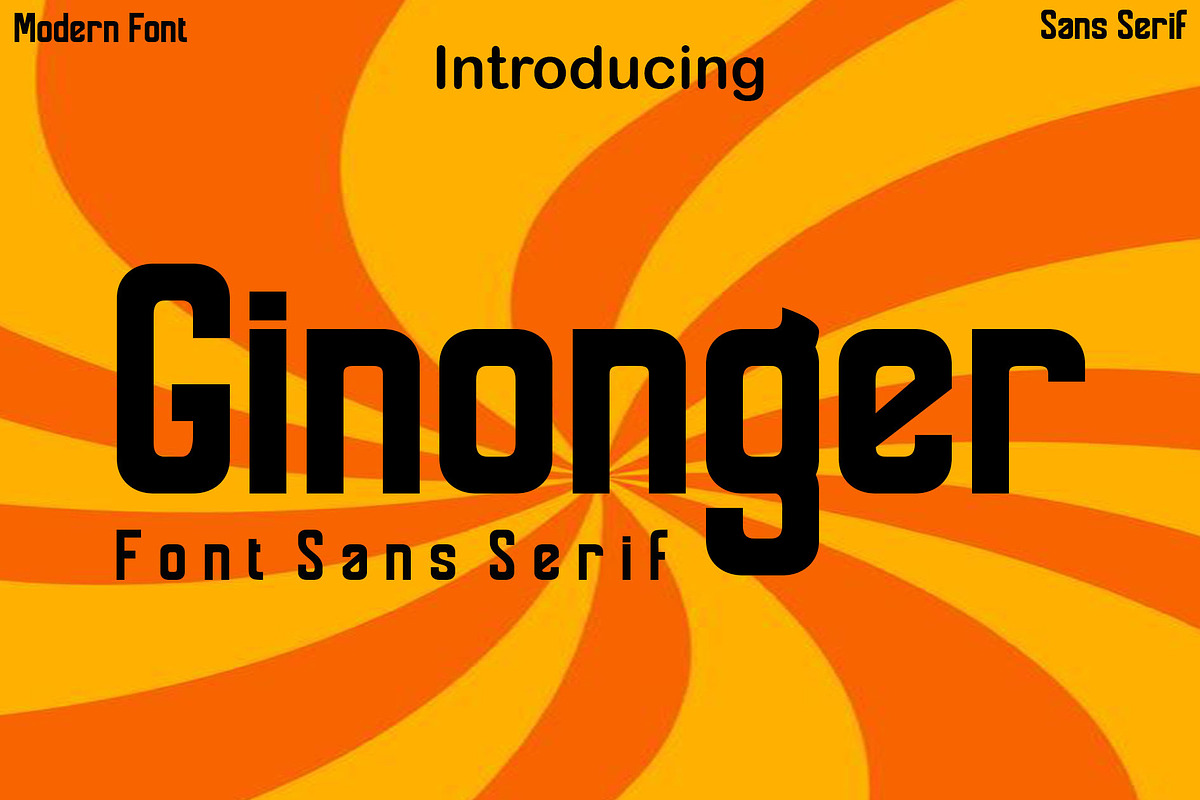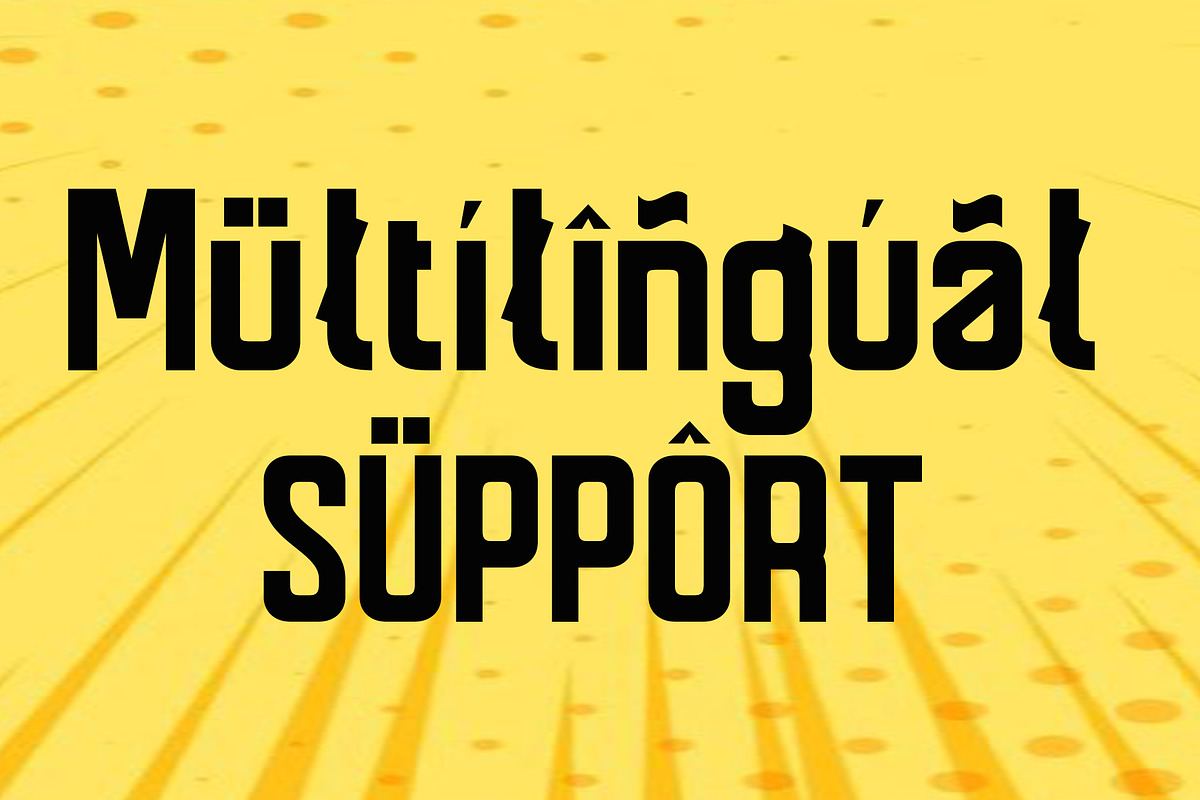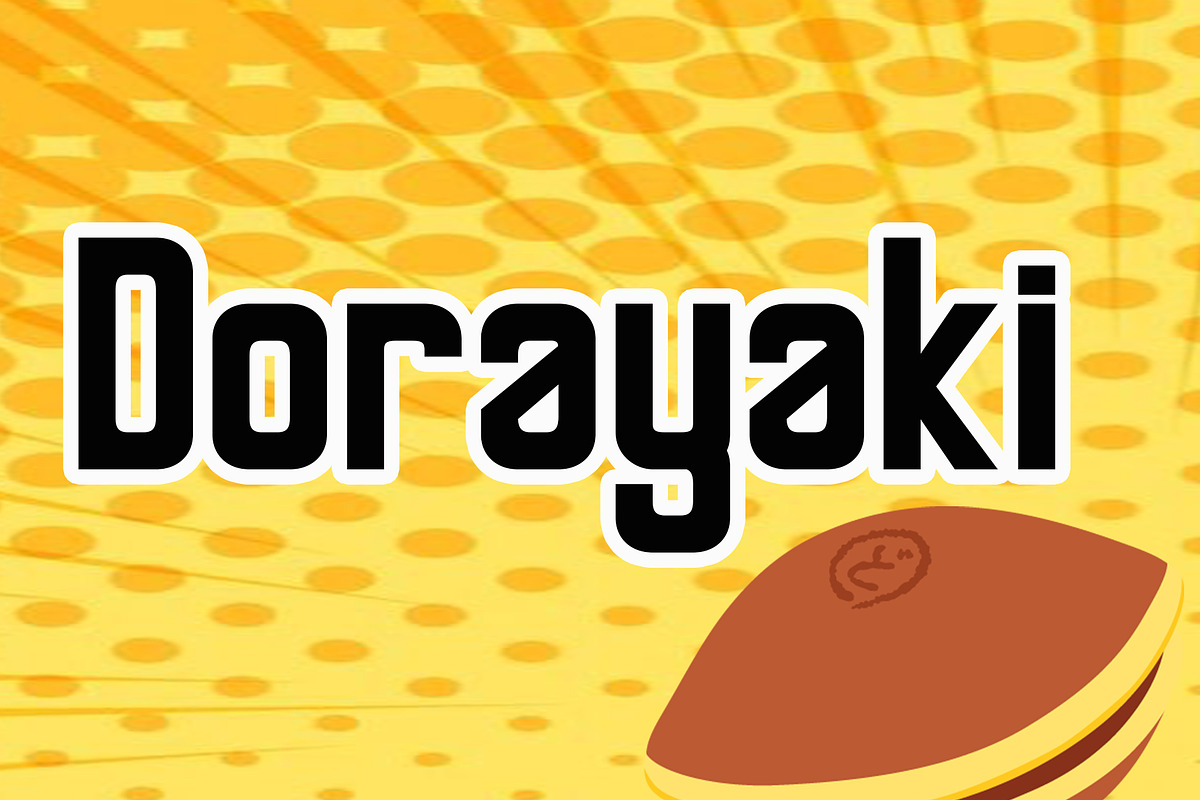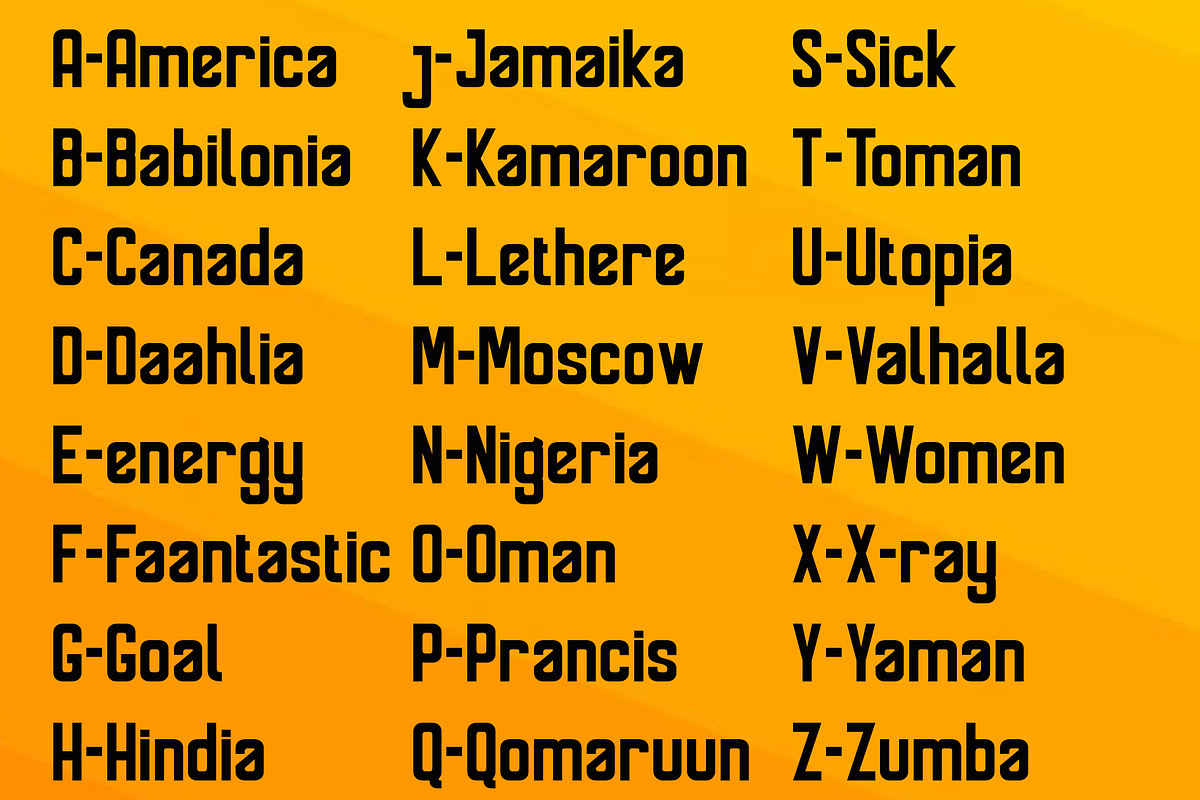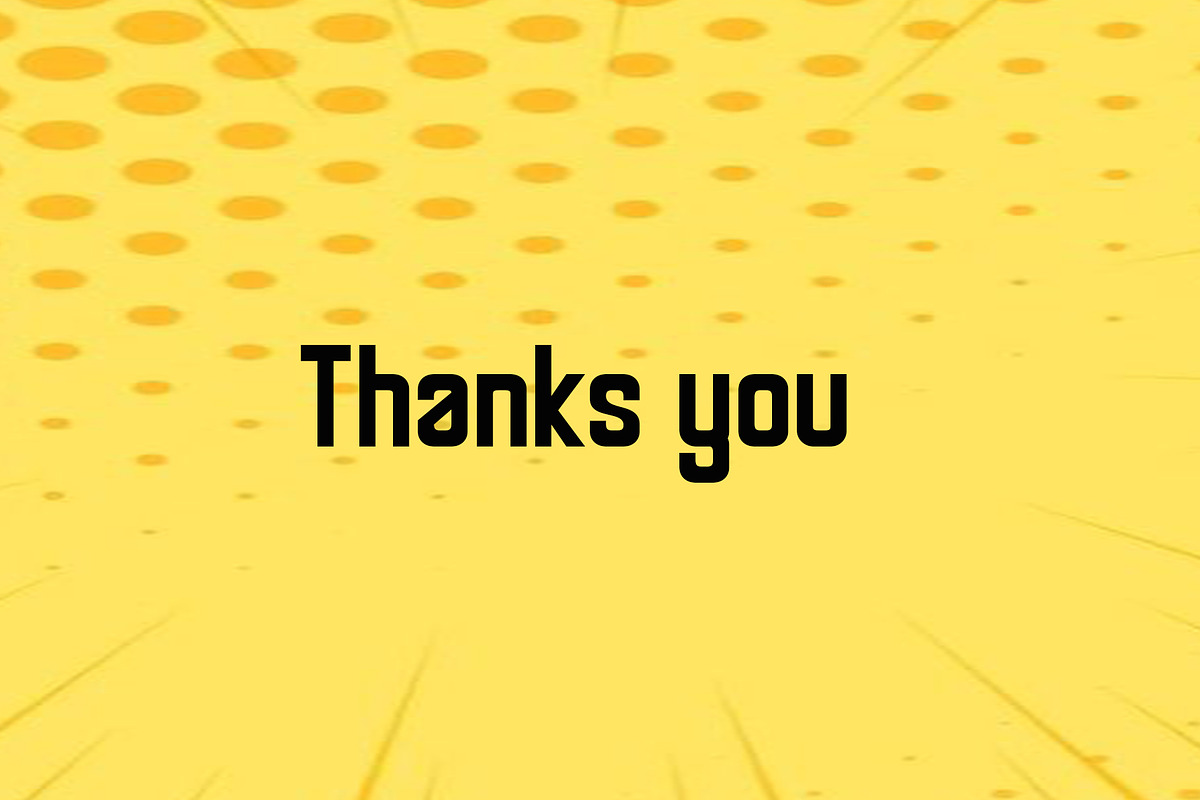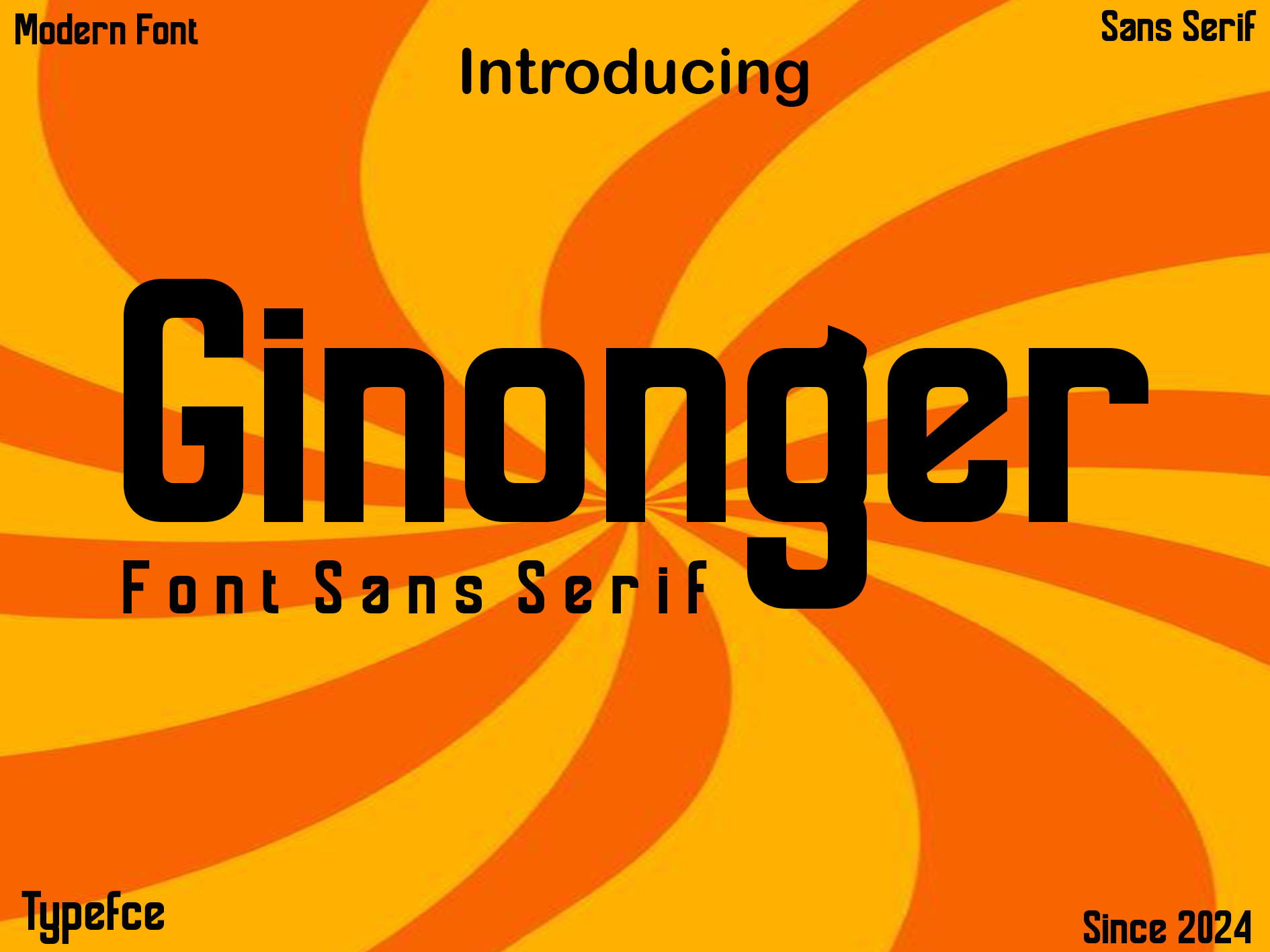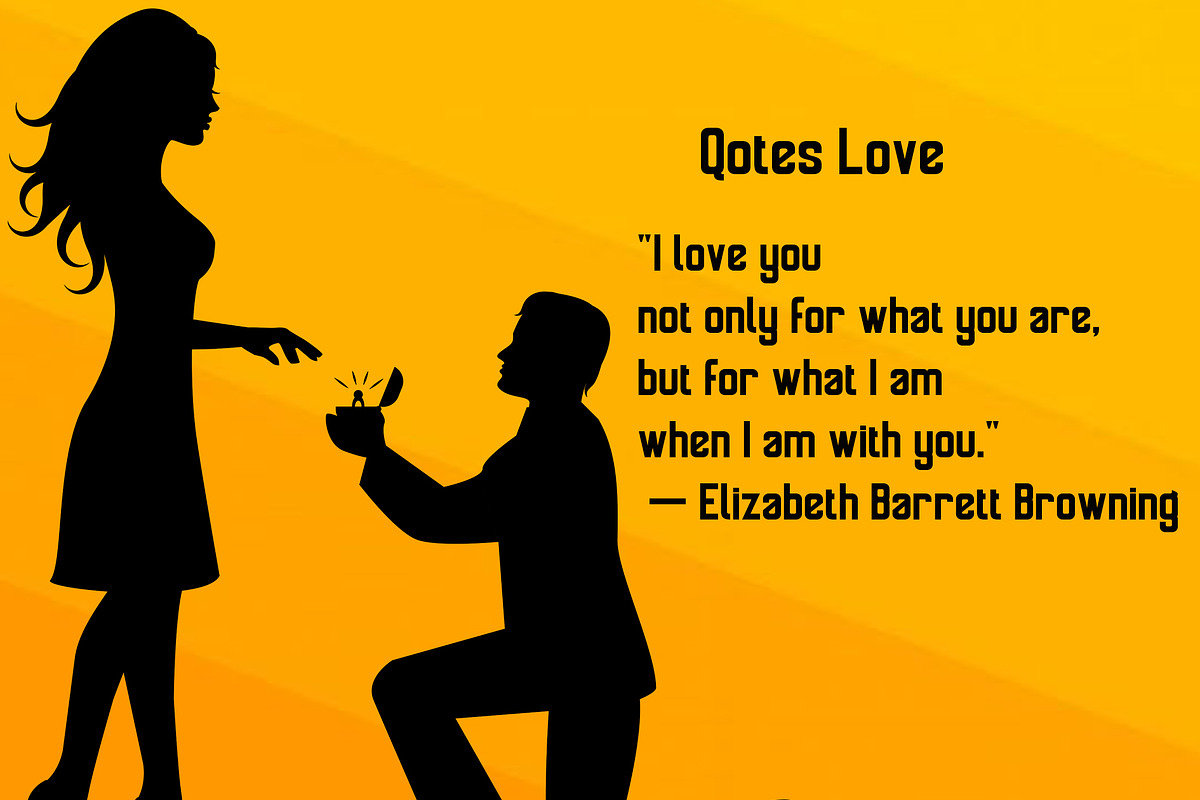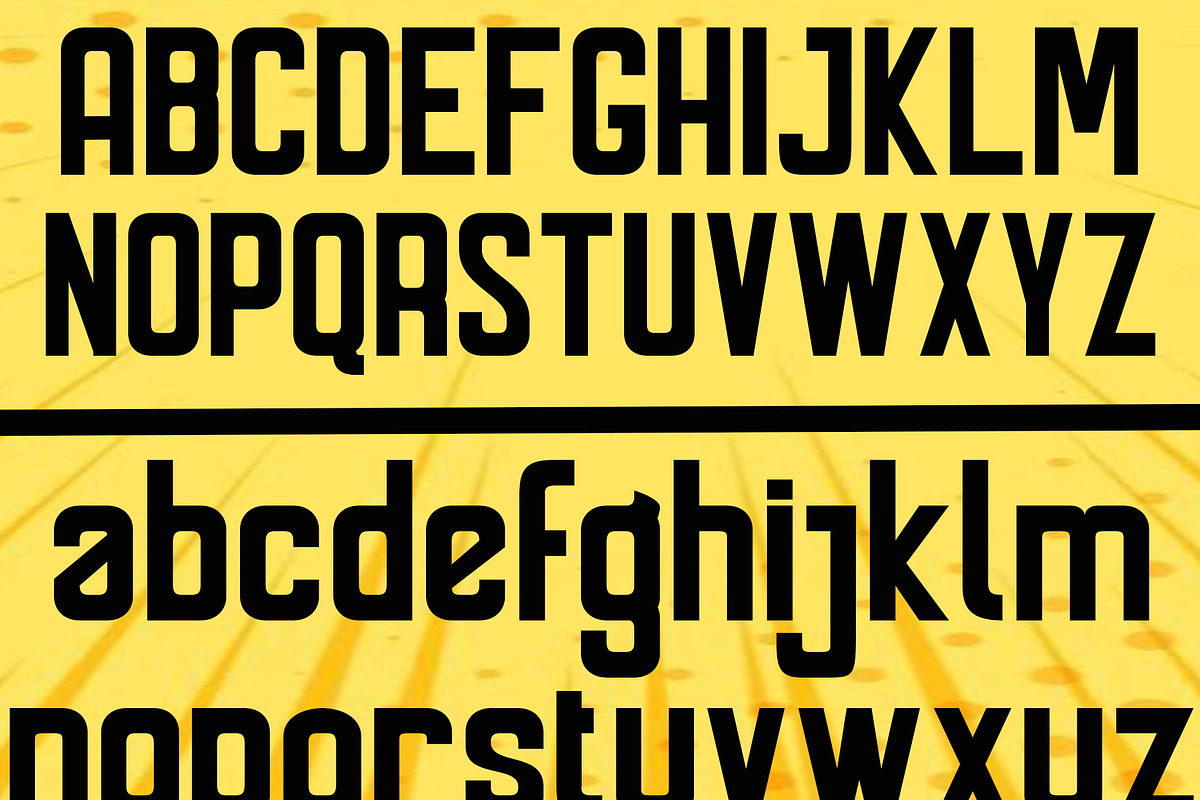
Ginonger sanserif Font
Ginonger is a modern sans-serif font with a beautiful and minimalist shape. Its clean, contemporary design is a great choice for any project that requires a professional touch. Multilingual support, so you can use this font to reach a global audience. This font is used for your projects if you are working on a website, branding material, or marketing campaign, invitations, banners, for mockups. and so forth. This font will definitely be a choice in your design toolkit. Good luck. thank you